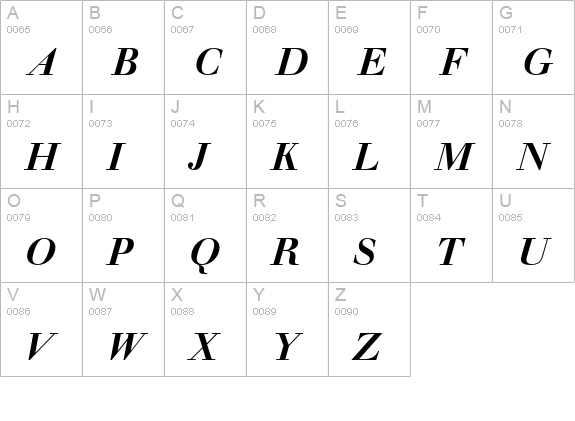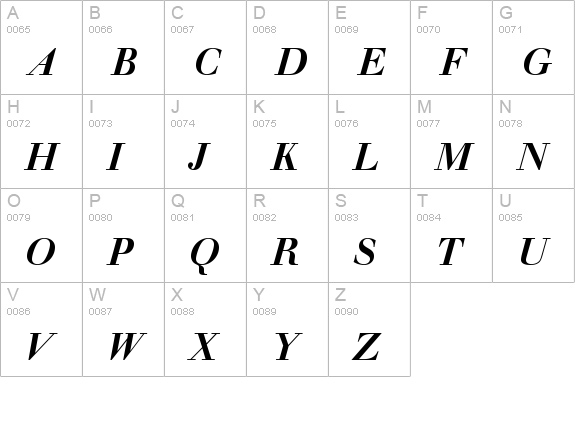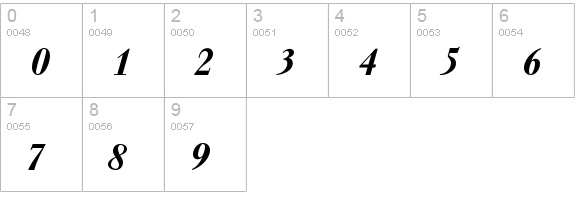
WalbaumEF-MediumItalic Font Details
Below you can preview WalbaumEF-MediumItalic in uppercase [A-Z], lowercase [a-z] and numbers [0-9]. You can also read the author's notes and license information before downloading.
WalbaumEF-MediumItalic is a timeless and elegant font that exudes sophistication and grace. With its gentle slant and flowing curves, this font adds a touch of elegance to any design project. Whether used for headings, titles, or body text, WalbaumEF-MediumItalic captures attention and creates a sense of refinement. The medium weight of this font strikes the perfect balance between boldness and subtlety, making it versatile and adaptable to a variety of design styles. It is ideal for both print and digital projects, bringing a touch of class to advertisements, magazines, websites, and more. One of the greatest advantages of WalbaumEF-MediumItalic is that it is freely available to download at FontsMarket.com. This means that designers and creatives can access this exceptional font without any financial burden. Its availability for free makes it a valuable asset for both professional designers and hobbyists. WalbaumEF-MediumItalic is a must-have font for those who appreciate the beauty of classic typography. Its italic variant adds a unique and sophisticated twist to any design, enhancing the overall visual appeal. Its legibility and readability ensure that your message is conveyed effectively, while its aesthetic charm elevates the overall design. Whether you are creating a logo, designing a website, or working on a branding project, WalbaumEF-MediumItalic is the perfect choice. Its timeless elegance and freely accessible nature make it a font that stands out from the crowd. Download this exceptional font today at FontsMarket.com and elevate your designs to new heights of sophistication.